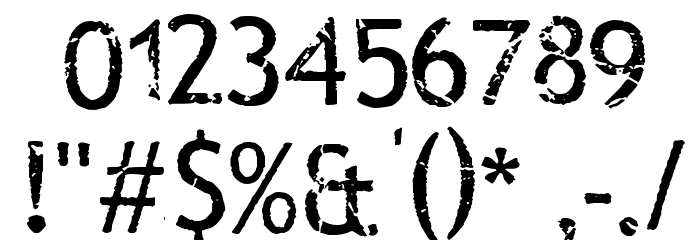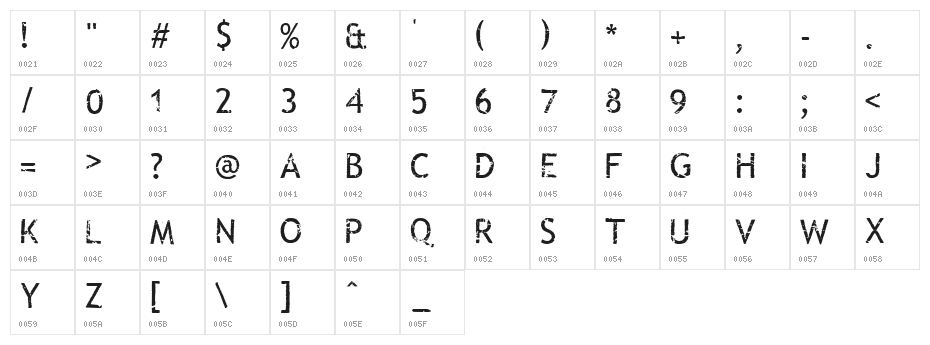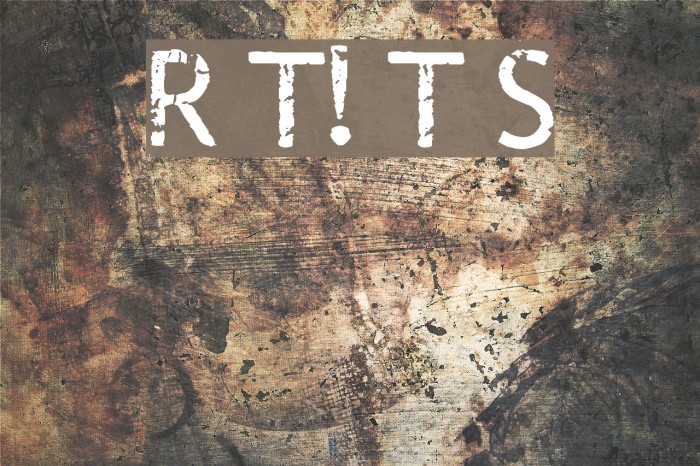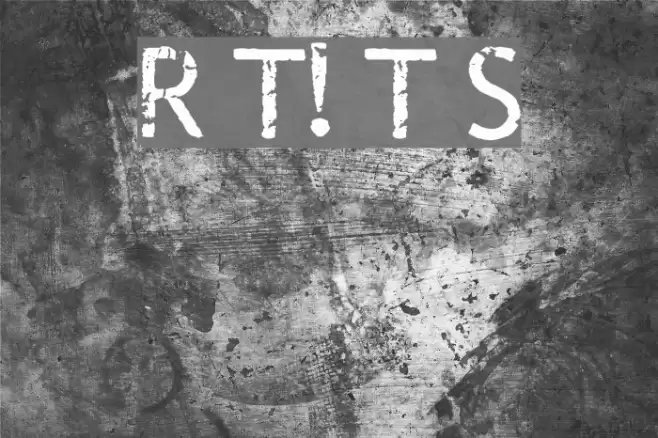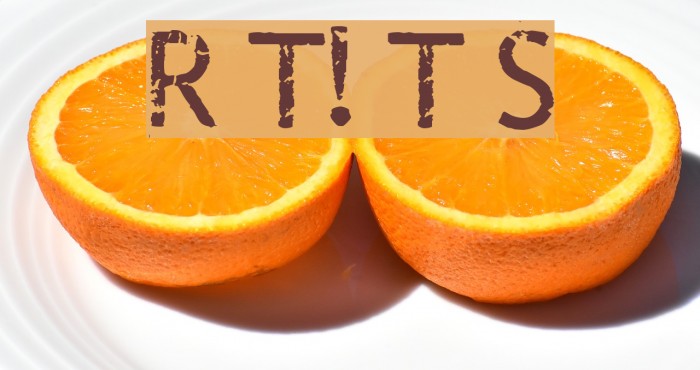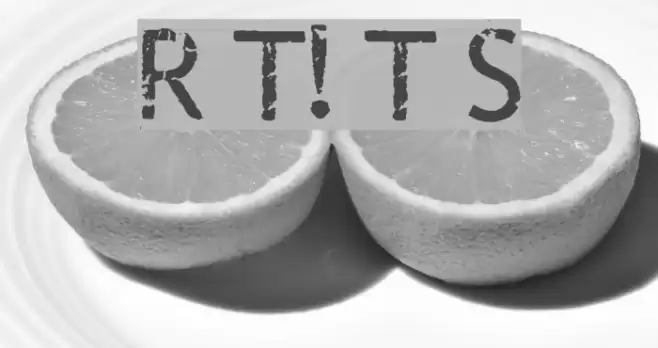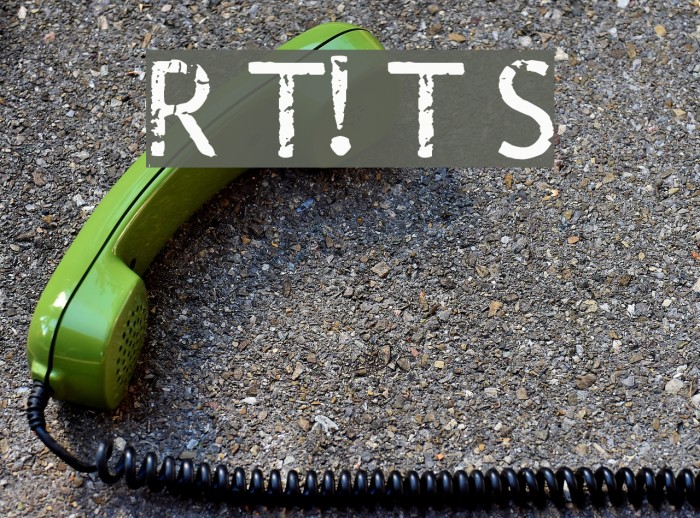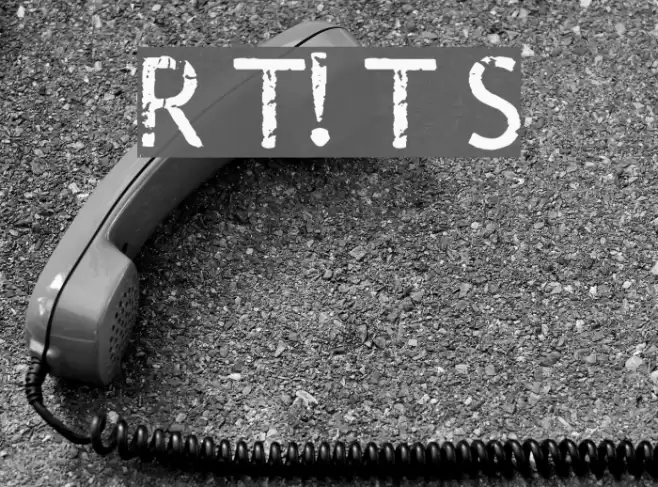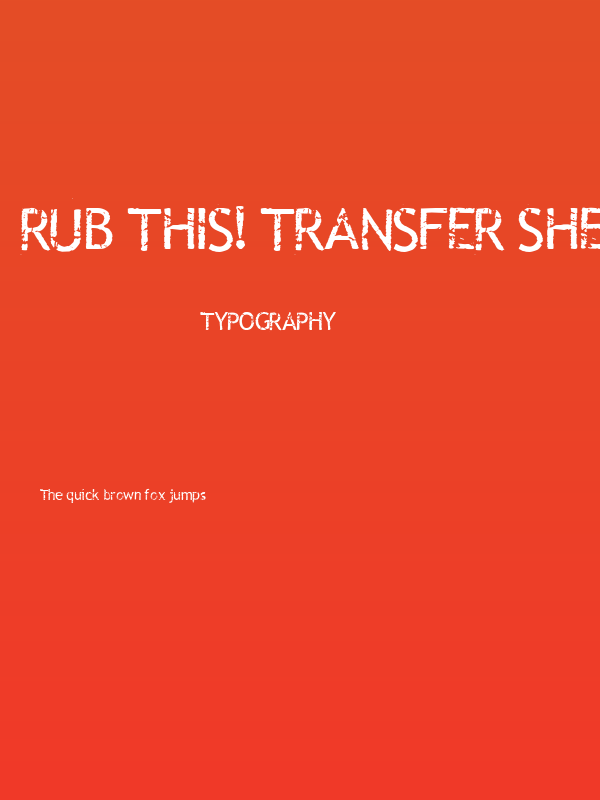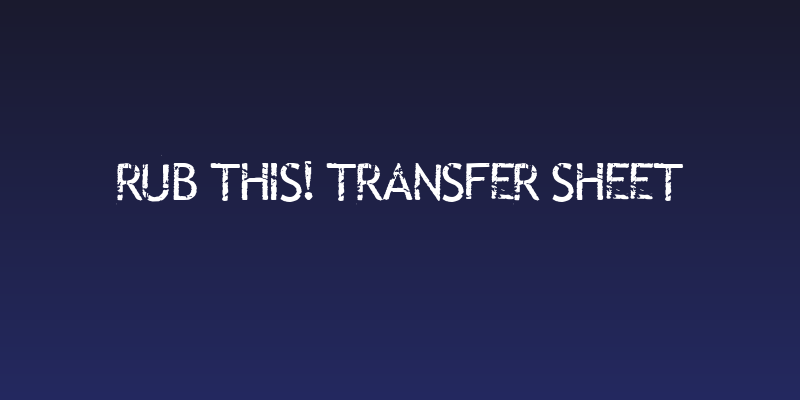
Rub This! Transfer Sheet Font
Rub This! Transfer Sheet Description
This font features a distressed, grunge style with a worn and weathered appearance. The characters are bold and slightly irregular, giving them a hand-crafted feel. The uppercase and lowercase letters maintain a consistent style, with rough edges and a textured look that suggests a vintage or industrial aesthetic. The numerals and special characters follow the same design, ensuring uniformity across all glyphs. This font's unique appearance makes it ideal for projects that require a rugged or edgy look.
| Proposed Projects | Ideal for posters, album covers, branding for edgy or vintage-themed products, and any design requiring a rugged aesthetic. |